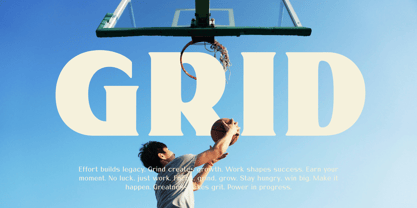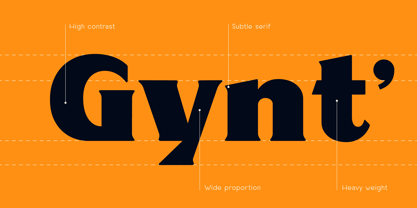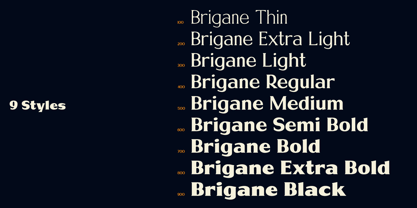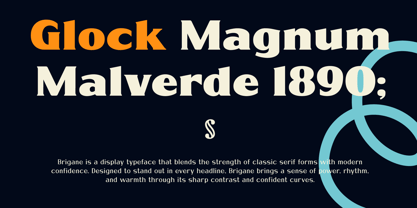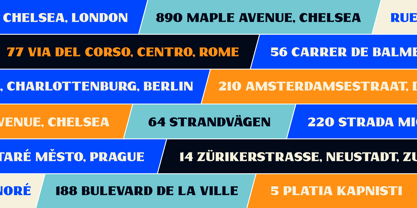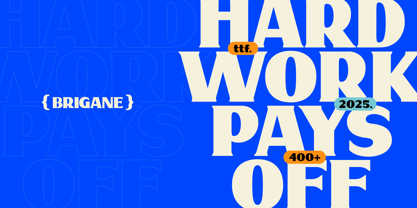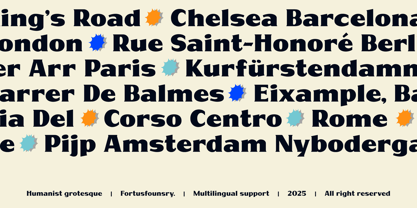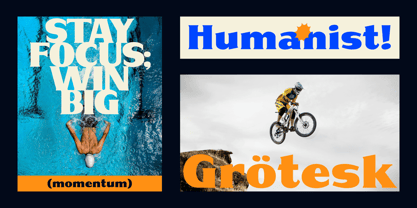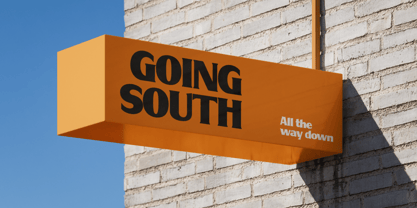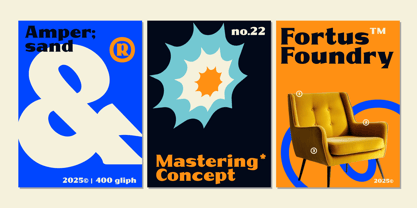
Brigane
The Brigane Font Family was designed by Zulhilmi Hanip and published by Fortus Foundry. Brigane contains 9 styles and family package options. More about this family
Brigane is a striking display typeface that seamlessly blends the timeless elegance of classic serif design with a contemporary, dynamic flair. With its pronounced contrast, generous proportions, and refined serifs, Brigane is engineered to capture attention in any headline. The robust structure and flowing curves of each letter impart a sense of movement and individuality, making it an ideal choice for projects that embody both tradition and innovation—from impactful editorial headlines and engaging sports campaigns to distinctive branding and eye-catching posters. Comprehensive multilingual support, and a versatile variable font version, Brigane effortlessly adapts to diverse visual styles while preserving its unique character. Whether utilized in bold advertising, lively packaging, or assertive brand identities, Brigane infuses energy, clarity, and exceptional craftsmanship into every design.